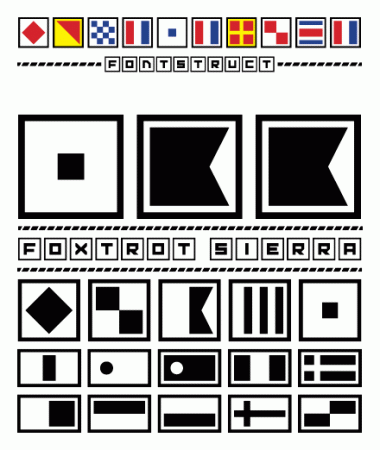
Foxtrot Sierra is an attempt to create a font from the International Maritime Signal Flags system. The system really relies on color for differentiation so if you want to use them seriously, you'll need to head over to Google or Wikipedia and look up the proper colors. Then colorize them with the software of your choice. Also note the numbers should be pennant shaped, but that proved to be very difficult with Fontstruct. So I improvised.
I've included a key in the lower case. (For the numbers, you should be able to type shift + {number} to get the key.)
So I know how hard it is to make the flags with only two colours and still make them look right.
You did it a lot better than me, especially the F, M and V. 10/10.
I didn't see your design until just now. Nice work... especially the number flags.
It really is much tougher than you would think to execute these in Fontstruct. I had to work some of them out on graph paper first.
The "L" flag should be flipped to make it distinguishable with the "U" flag